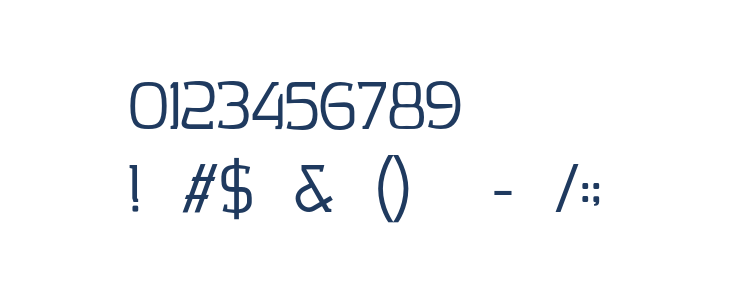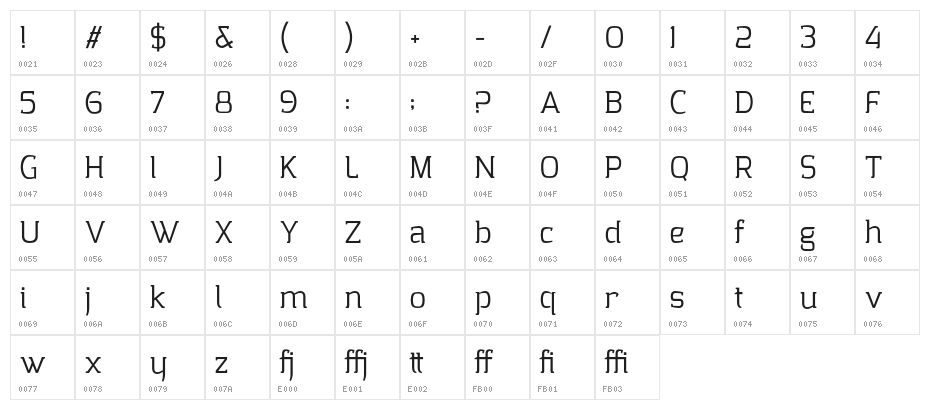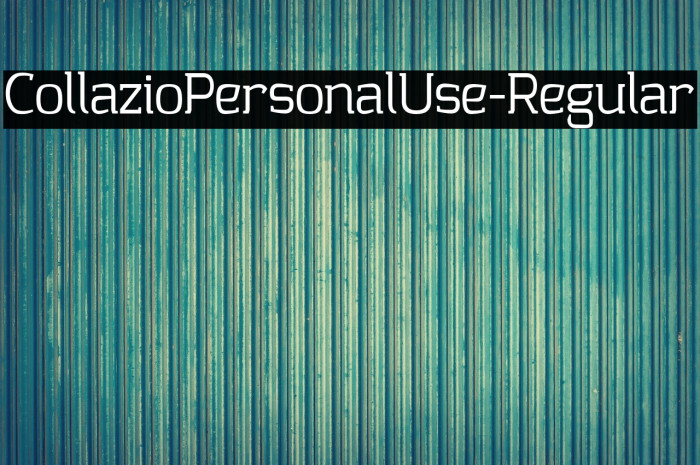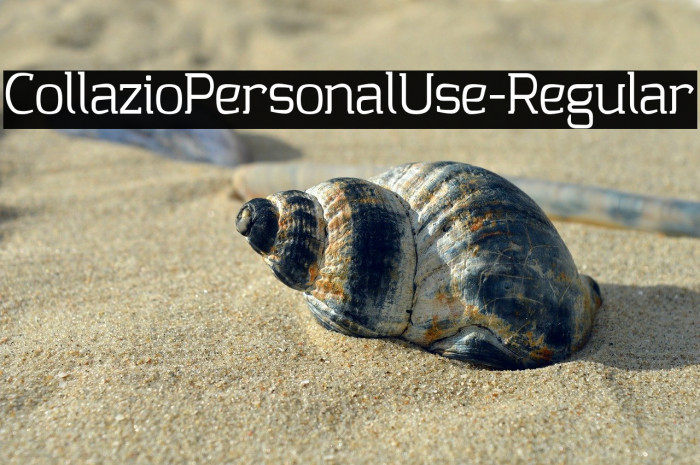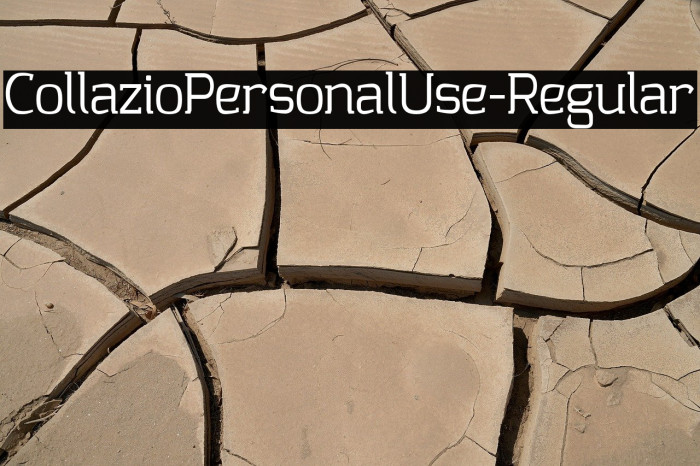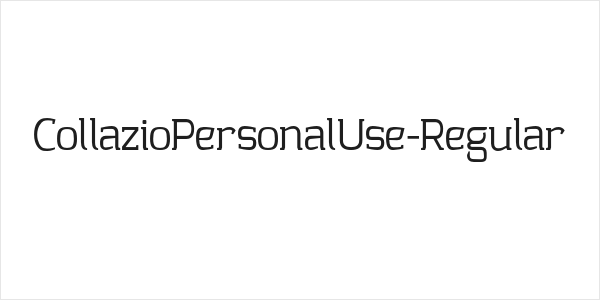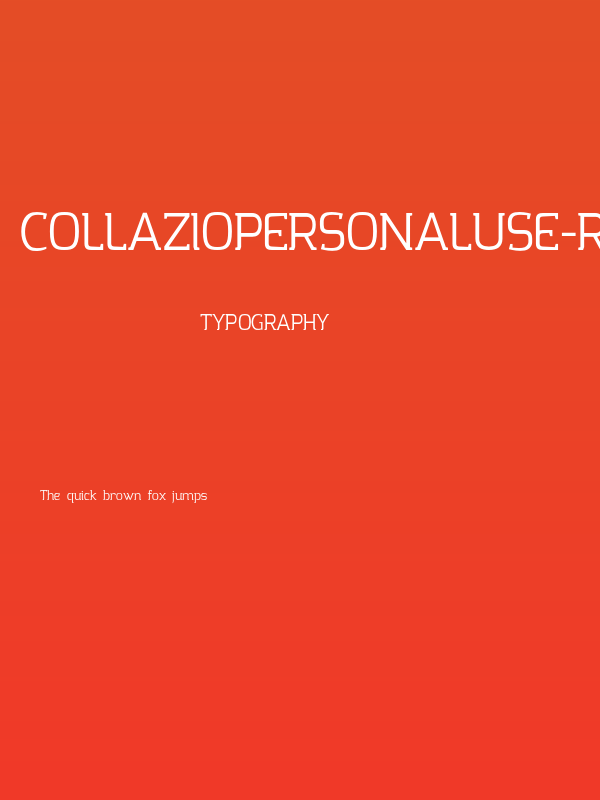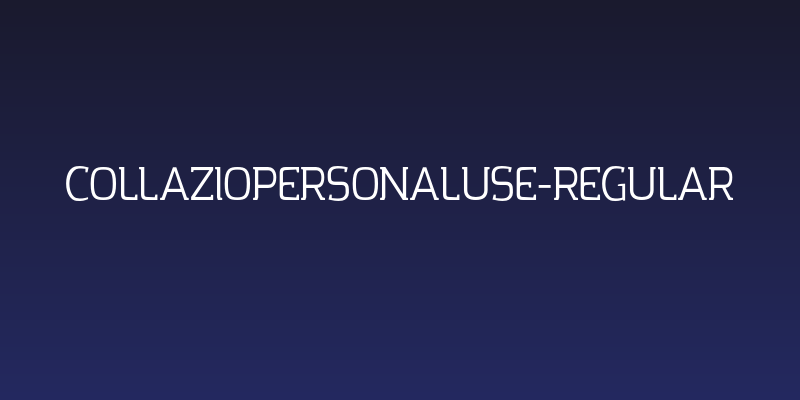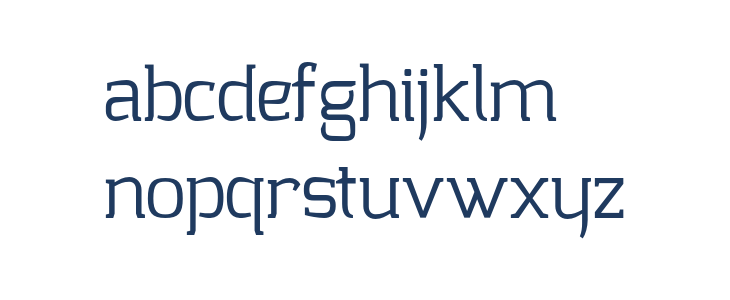
CollazioPersonalUse-Regular Font
CollazioPersonalUse-Regular Description
This font features a modern and geometric design with clean lines and a structured appearance. The uppercase letters are bold and angular, while the lowercase letters maintain a consistent style with slightly rounded edges, adding a touch of softness to the overall look. The numerals are clear and easy to read, complementing the alphabet with their uniform stroke width. Special characters are designed with the same attention to detail, ensuring a cohesive appearance across all glyphs. The font's design is both functional and stylish, making it suitable for a variety of applications.
| Use Case | Headlines, Logos, Branding |
| Proposed Projects | Ideal for branding, advertising, and editorial design projects that require a modern and professional look. |